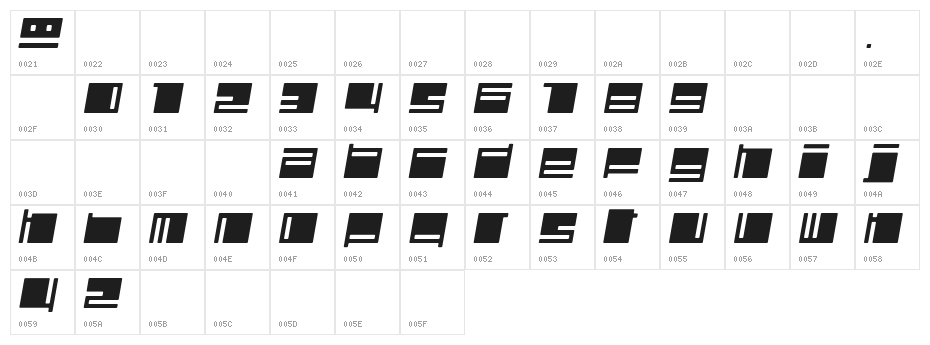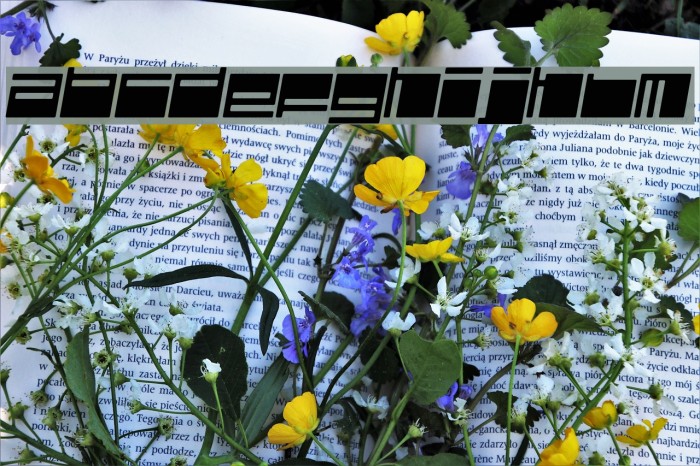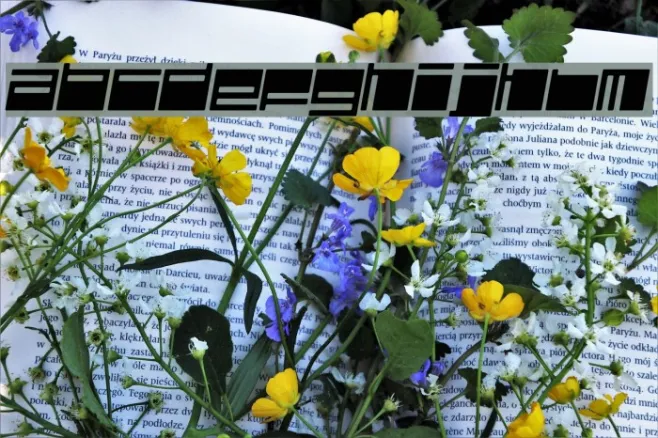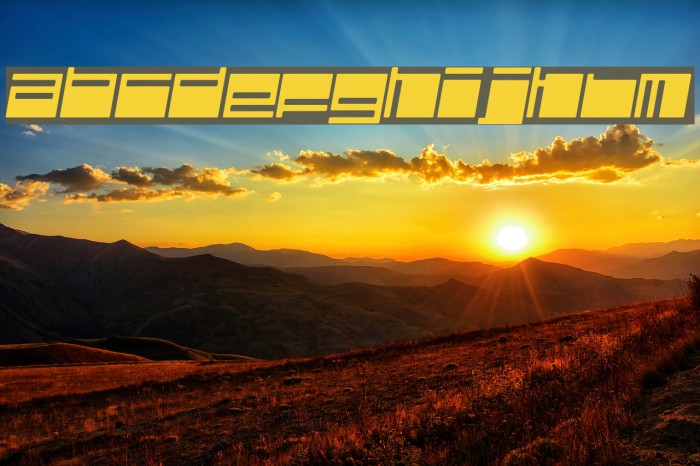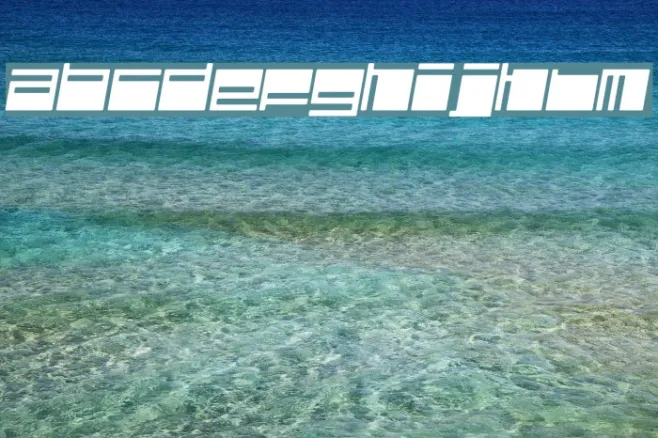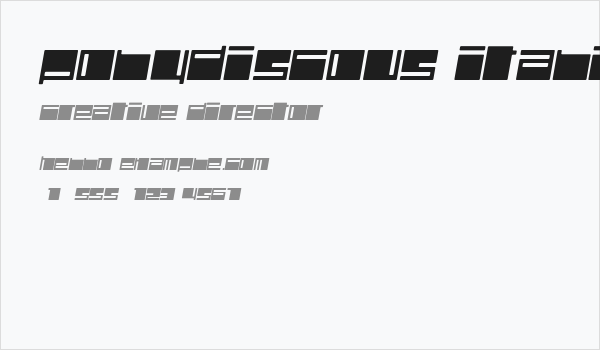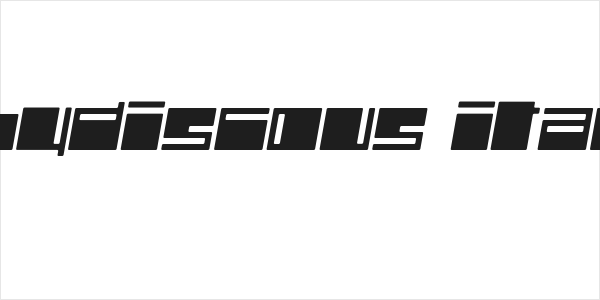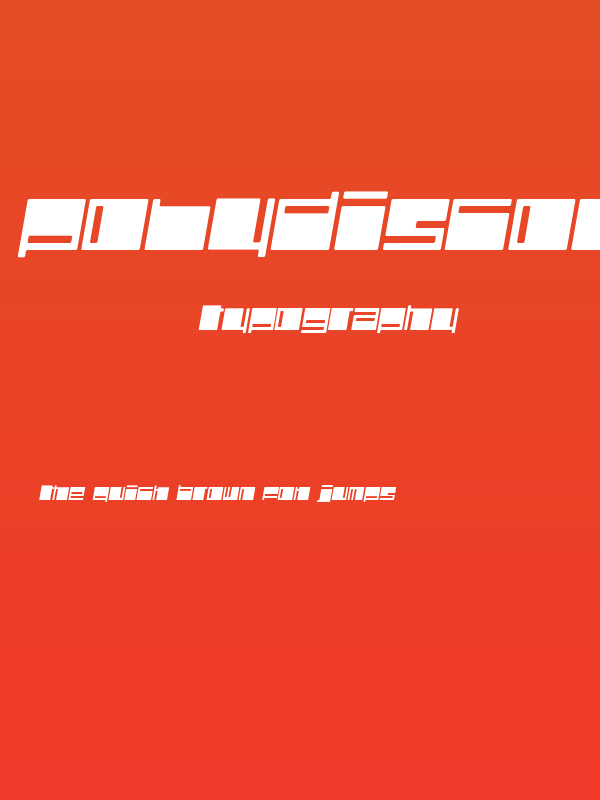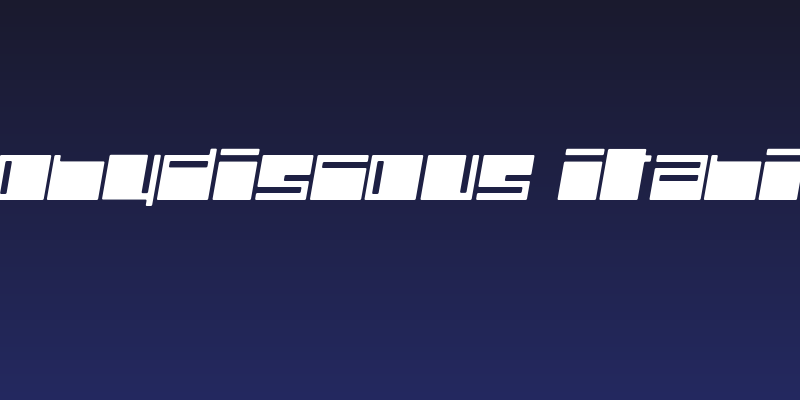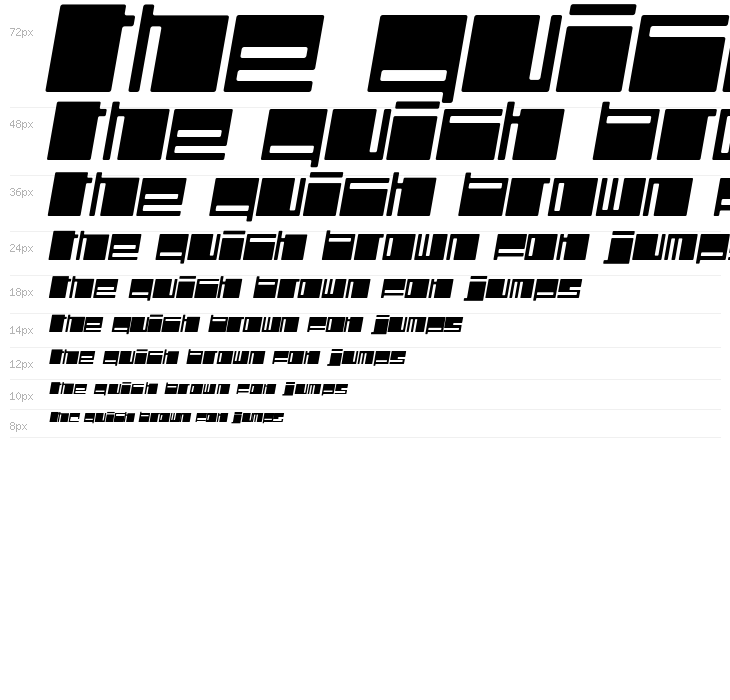
Polydiscous-Italic Font
Polydiscous-Italic Description
This font features a bold and futuristic design with a distinct italic slant. The characters are constructed with thick, block-like strokes that give it a strong presence. Each letter is uniquely styled with angular cuts and a geometric feel, making it stand out in any design. The numbers and special characters follow the same bold and angular theme, ensuring consistency throughout. Its modern and edgy appearance makes it suitable for projects that require a standout and assertive typeface.
| Proposed Projects | Ideal for sci-fi themed designs, video game graphics, tech branding, and modern posters. |